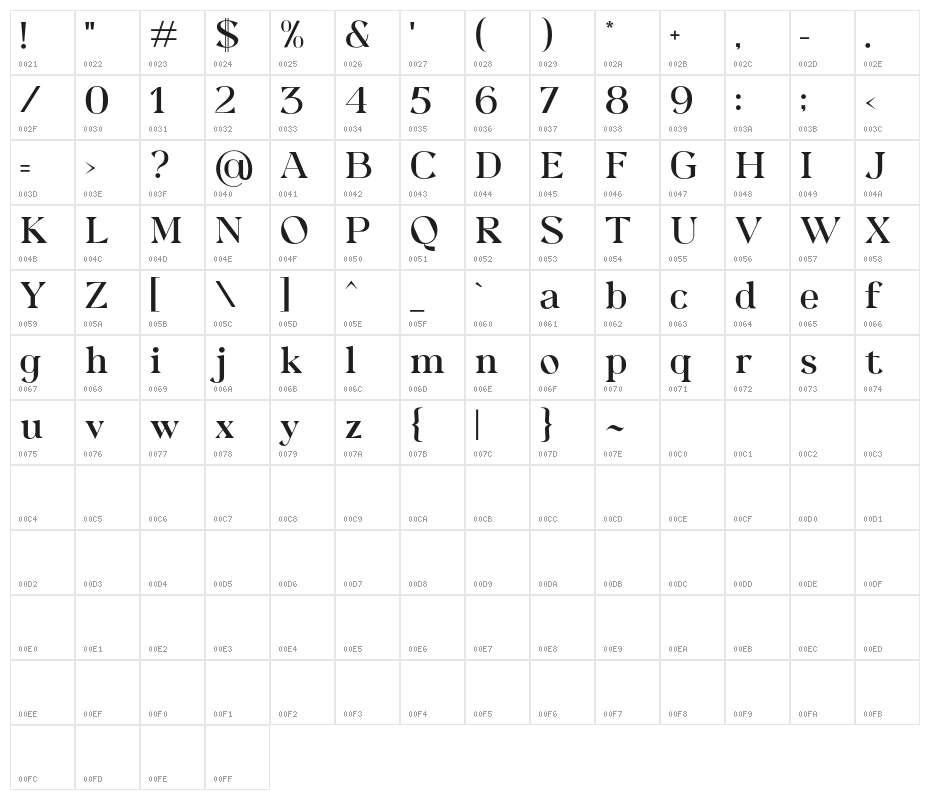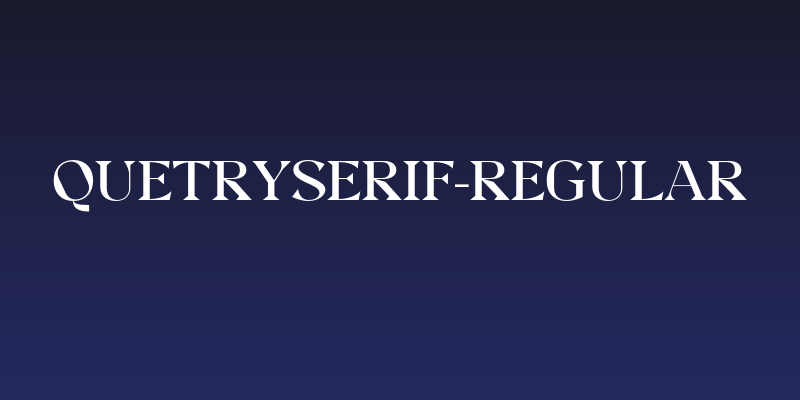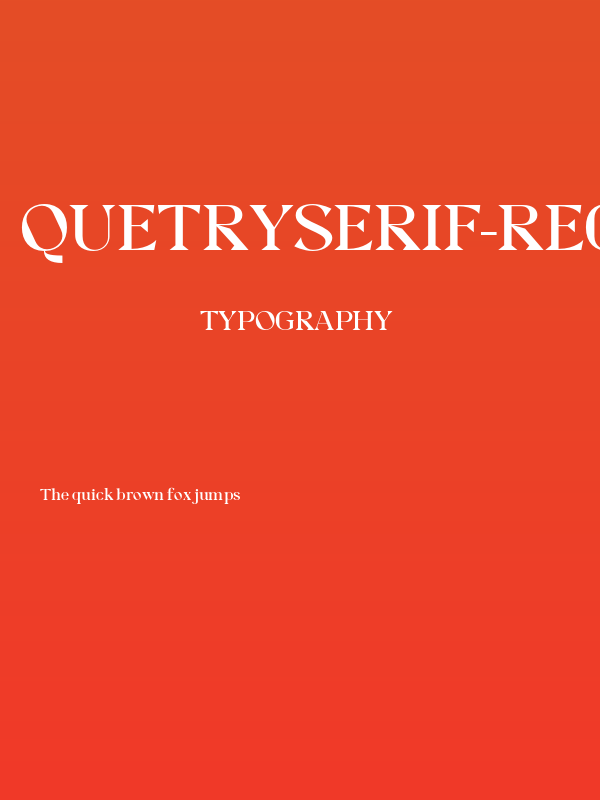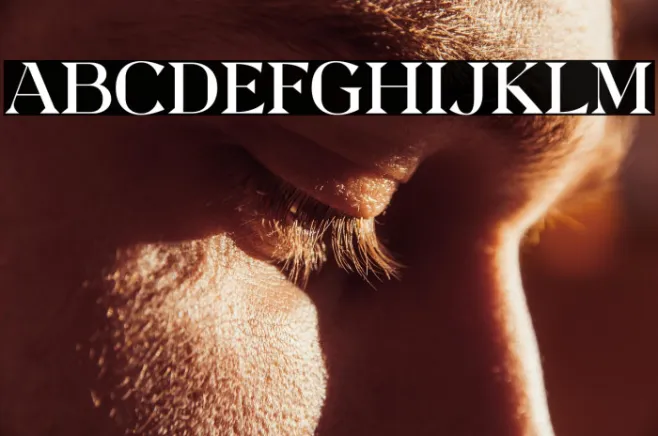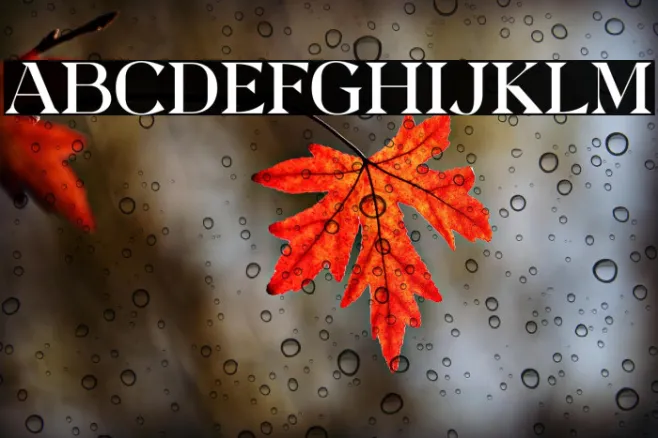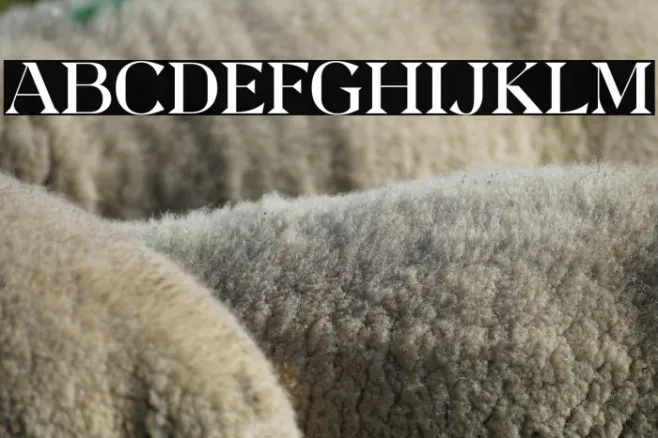
QuetrySerif-Regular Font
QuetrySerif-Regular Description
This font exhibits a classic serif style with elegant, sharp serifs and a refined structure. The uppercase letters are bold and commanding, while the lowercase letters maintain a balanced and readable form. The numerals are distinct and well-proportioned, ensuring clarity in any context. Special characters are designed with the same attention to detail, making them suitable for a variety of uses. The overall design is sophisticated, with a medium contrast in stroke thickness that adds to its readability and aesthetic appeal.
| Font Family | Quetry Serif |
| Proposed Projects | Ideal for editorial design, book covers, formal invitations, and branding projects that require a touch of elegance. |